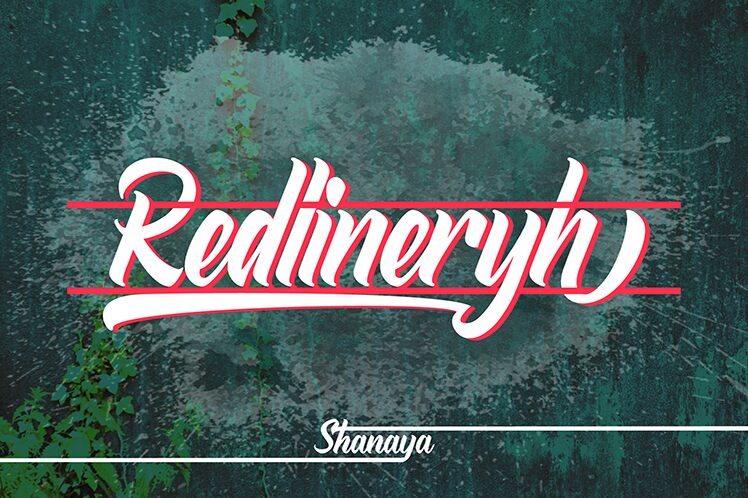
Hi .... let me introduce the Redlineryh,
This font was created to help you design a brand of yours own or your client, and you can also use it for designing all of the graphic stuff such as badges, signs, packaging, headlines, T-shirts / apparels, Posters, etc.The Redlinery was designed for personal characters such as strong, confidence, dynamic, readable, etc.